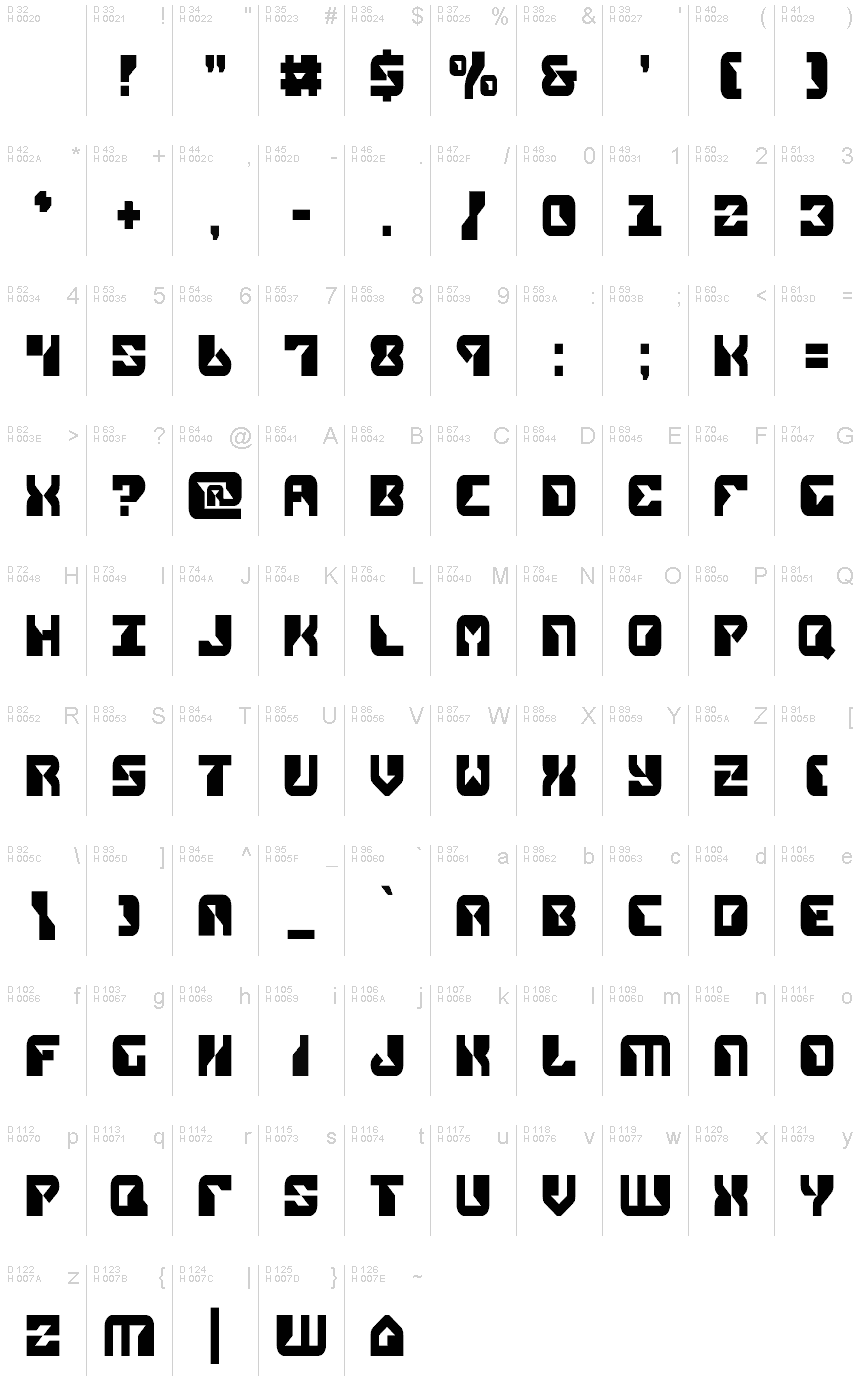
Replicant Condensed
Replicant Condensed by Iconian Fonts is a free futuristic caps display font with a hard sci-fi silhouette. The letters are built from heavy vertical blocks sliced with sharp diagonal cuts and triangular notches, giving the alphabet a robotic, almost stencil-like rhythm without losing its sleek, synthetic mood.
It suits game logos, movie title cards, tech posters, album covers, and short packaging headlines where that angular geometry can do the talking. As a free font, it makes the most sense in brief display settings, monograms, and cover lines, because the caps carry a strong modular pattern that feels engineered rather than simply bold.